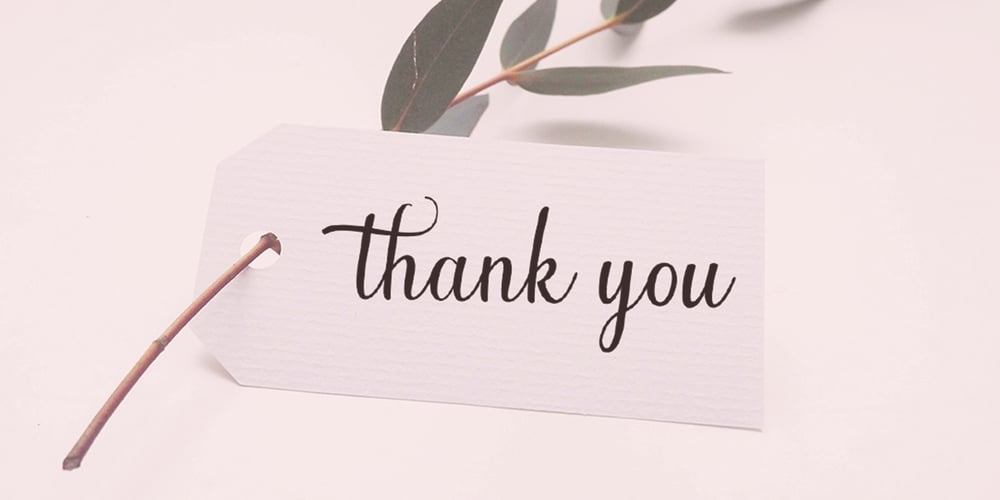
Sabrina Script
Sabrina Script font
Sabrina Script Font Family was designed by Imam Muhajir and published by Straight.Co. Sabrina Script contains 1 styles and family package options. The Sabrina is a modern script font with an elegant style. You can alternate between the regular and swashed letters to get a handwritten, professional look.